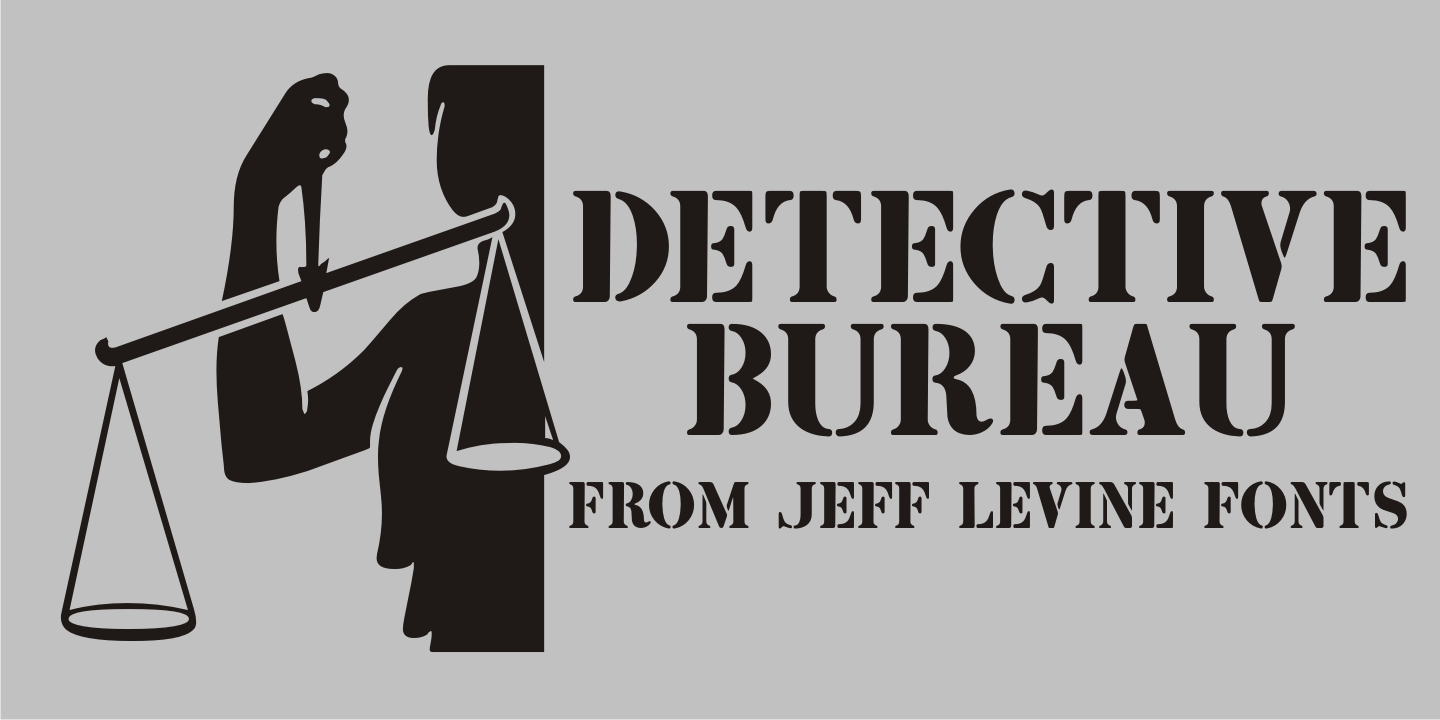
Detective Bureau
Traditional stencil type faces have always projected images of strength, power, police, military or industry. The hand-lettered title card for 1951's 'Detective Story” (directed by William Wyler) is a perfect example of this.
A bold Roman letter style, it was the perfect inspiration for Detective Bureau JNL.
Detective Bureau JNL Regular by Jeff Levine Fonts